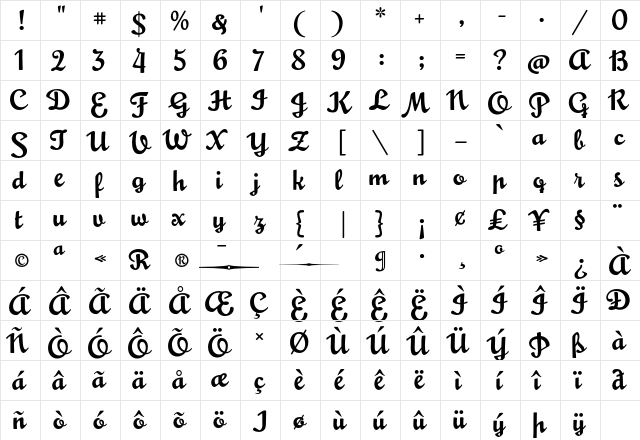
MousseScript Regular
Design Context for MousseScript Typeface
MousseScript brings a calligraphic fluidity to the page — its connecting strokes and expressive curves give it an unmistakably human quality.
Font Pairing: Combine MousseScript with a simple geometric sans for maximum contrast — the tension between flowing curves and clean structure is a classic typographic pairing.
Pro Tip: Pair MousseScript with a clean sans-serif for supporting text. The contrast between fluid script and geometric structure creates an elegant typographic hierarchy.